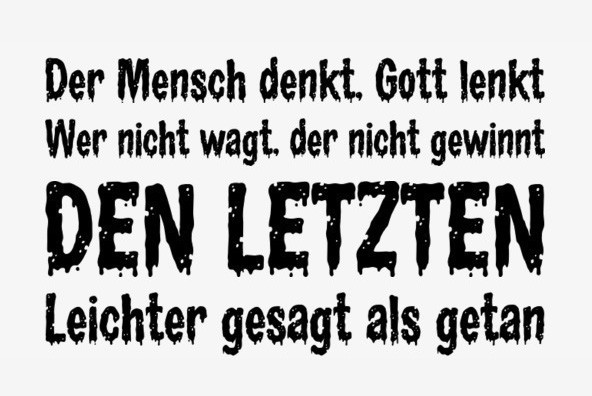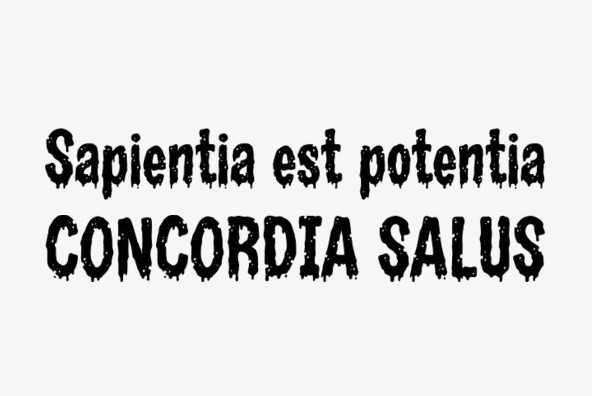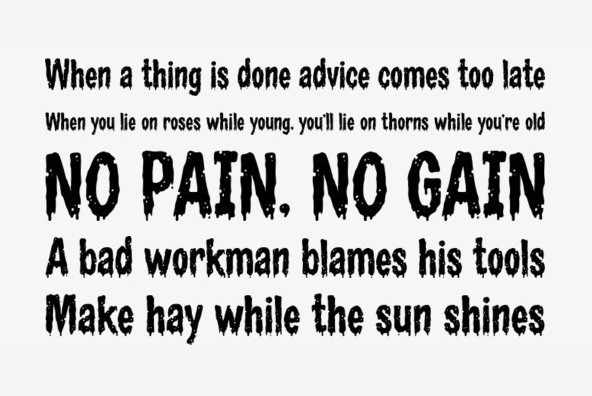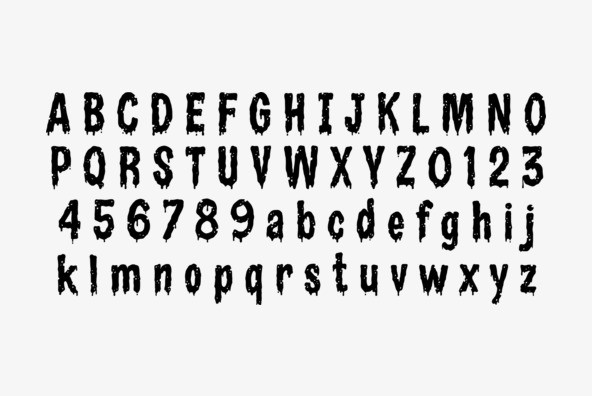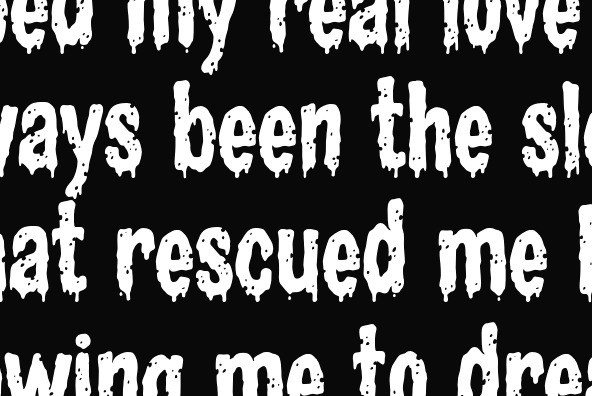
Zombie Rot Drippy Font
Zombie Rot Drippy
Your cries of "Extra rot, please!!!" have been answered. It's Zombie Rot Drippy with all the festering goodness of the original Zombie Rot but with more, um, drippiness! Flesh-eating has never been so much fun.